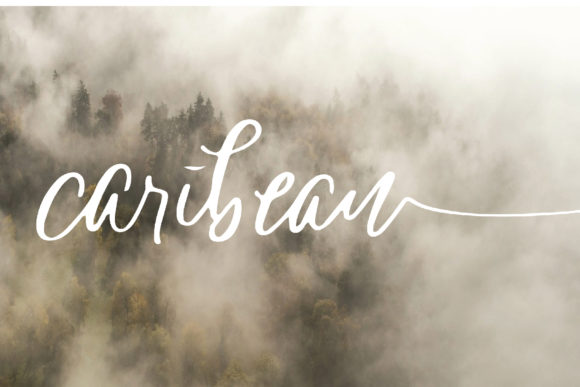
Prepare yourself to be swept away by Caribean, a captivating script font brimming with elegance and charm. Each glyph within this font family exudes a unique personality, crafted with the utmost care to emulate the beauty of handwritten calligraphy. With Caribean, you hold the power to transform your creative visions into breathtaking realities, leaving an indelible mark on the hearts of your audience.
Indulge in the artistry of Caribean and let your imagination soar. Envision your wedding invitations adorned with Caribean's graceful curves, whispering tales of love and commitment. Picture your social media posts radiating warmth and sophistication, captivating your followers with Caribean's undeniable allure. Unleash your inner artist and design logos that exude elegance and timeless appeal, leaving a lasting impression on potential clients.
Caribean is more than just a font; it's an invitation to embark on a creative journey filled with endless possibilities. Its versatility knows no bounds, seamlessly adapting to a myriad of digital and print projects. Whether you're a seasoned designer or just starting out, Caribean will effortlessly elevate your work to new heights, adding a touch of magic and enchantment to every project you undertake.
Join the ranks of creative visionaries who have discovered the transformative power of Caribean. Embrace the raw, authentic beauty of this script font and let your creativity flourish. Allow Caribean to be your muse, guiding you towards artistic triumphs and leaving your audience spellbound. Experience the exquisite artistry of Caribean today and unlock the gateway to a world of creative possibilities.